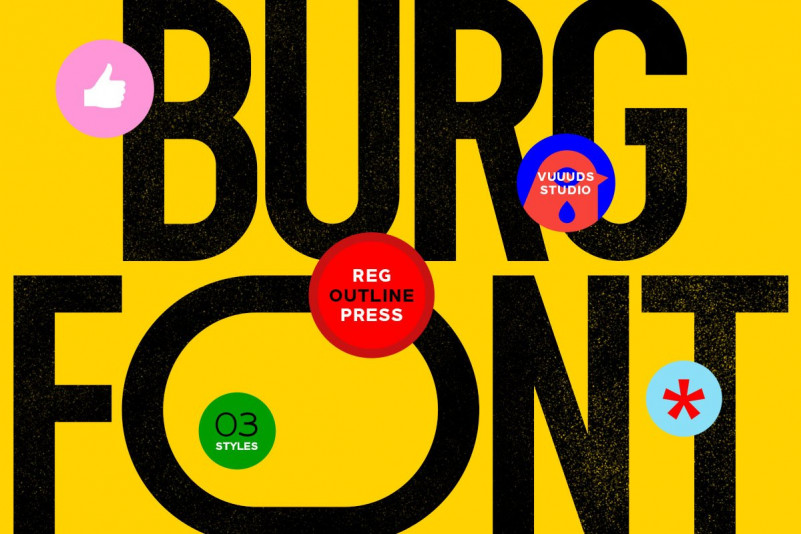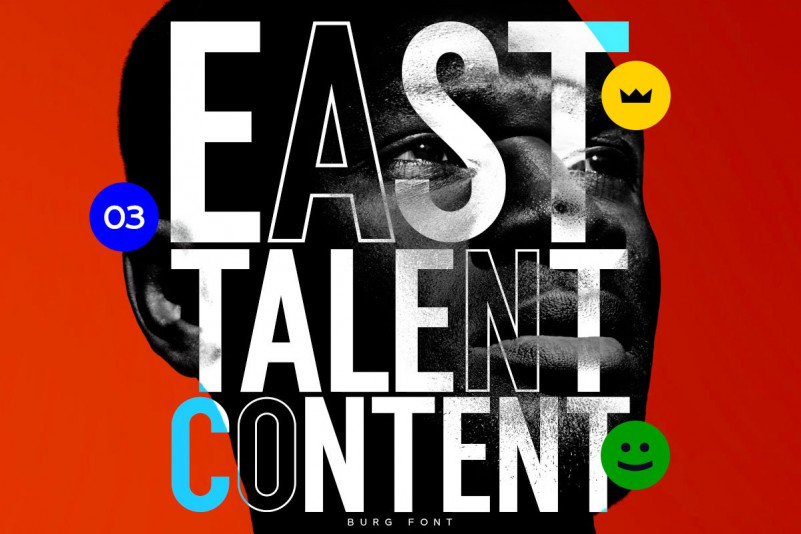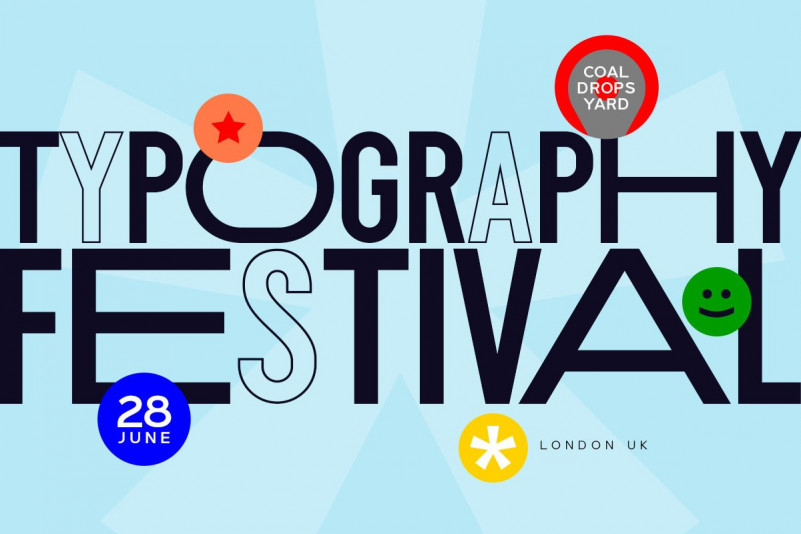
Burg Font
Introducing Burg Font!
Burg is modern bold font, come with 3 different styles (regular, outline, press). Every single letters have been carefully crafted to make your text looks awesome.
Foreign languages support: ÀÁÂÃÄÅÆÇÈÉÊËÌÍÎÏÐÑÒÓÔÕÖØÙÚÛÜÝàáâãäåæçèéêëìíîïðñòóôõöøùúûüýÿ